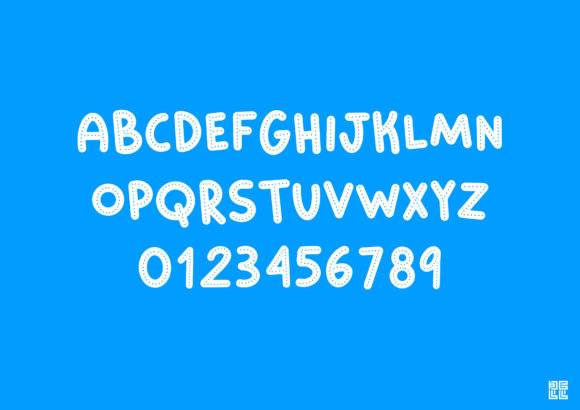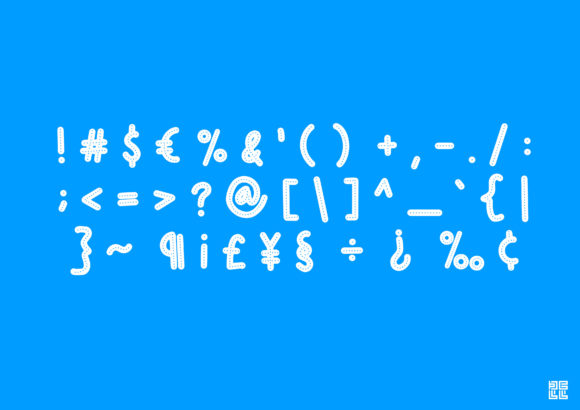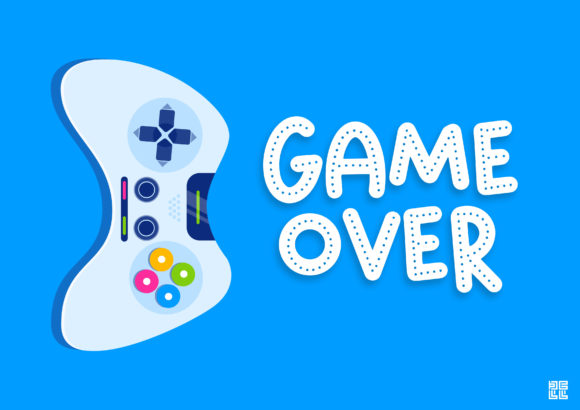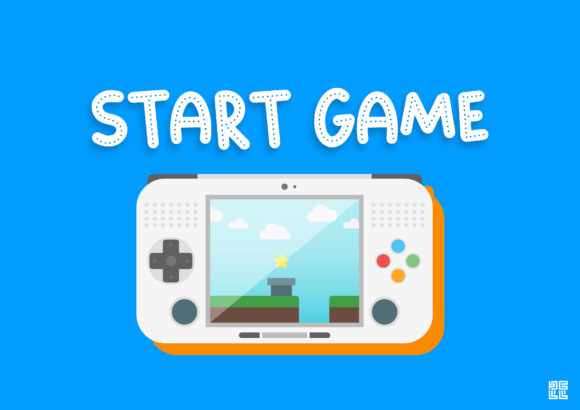
Introduction to Ding Dong Font
Ding Dong is a cool and neat looking display font.
The font is suitable for any branding project like logo, t-shirt printing, sporting design, and many more It will look outstanding in a wide range of contexts.